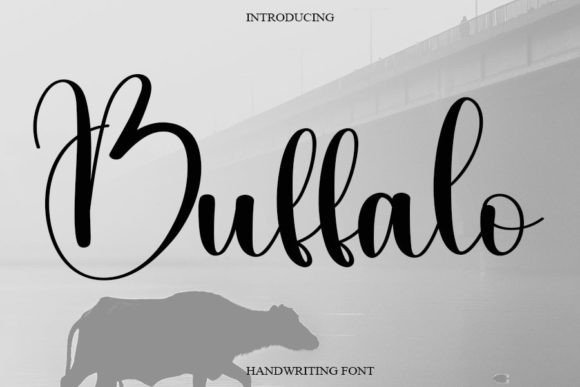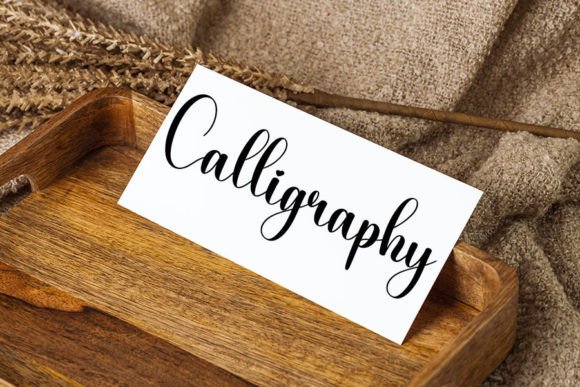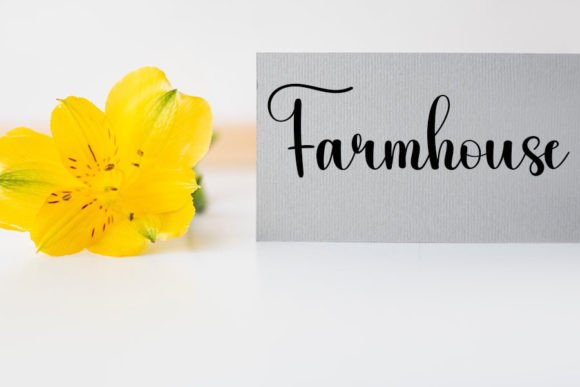
About Buffalo Font
“Buffalo” is a sweet and beautiful handwritten font that brings a sense of elegance and luxury to your design projects. This font is characterized by characters that appear to dance along the baseline, adding a playful yet sophisticated touch to your work. “Buffalo” is the perfect choice when you want to infuse your designs with a luxurious spark.
The font’s sweet and beautiful design adds a sense of charm and refinement to your creative projects. It is ideal for a wide range of design applications, including branding, invitations, posters, packaging, and more. “Buffalo” can make your designs stand out and leave a lasting impression.
In the world of design, fonts play a crucial role in conveying style, mood, and visual identity. “Buffalo” excels in these aspects by offering a handwritten style that is both sweet and luxurious. Its aesthetics infuse your designs with a sense of creativity and elegance, making them engaging and memorable.
In summary, “Buffalo” is more than just a font; it’s a sweet and beautiful design tool that can elevate your projects to a new level of charm and sophistication. Its playful yet luxurious style is ideal for designers seeking to create work that is both delightful and refined. Whether you’re an experienced designer or just starting your creative journey, “Buffalo” is the font that can help you create designs that are truly enchanting and visually captivating.